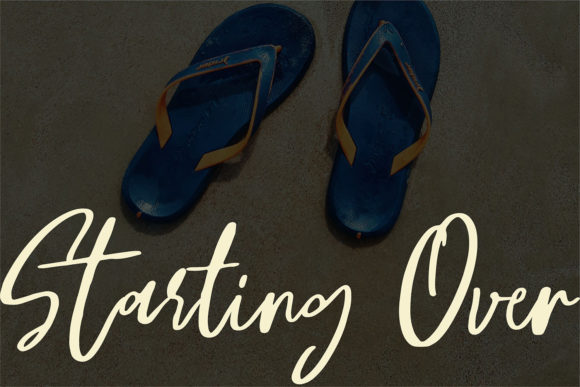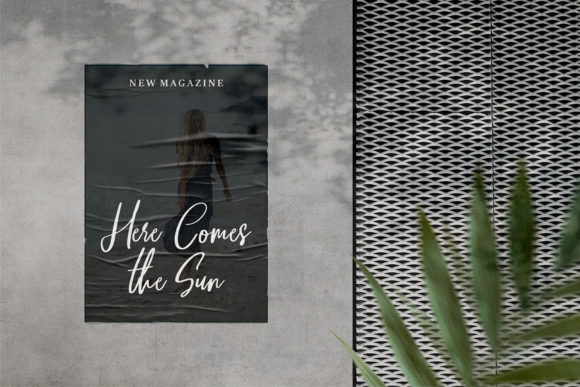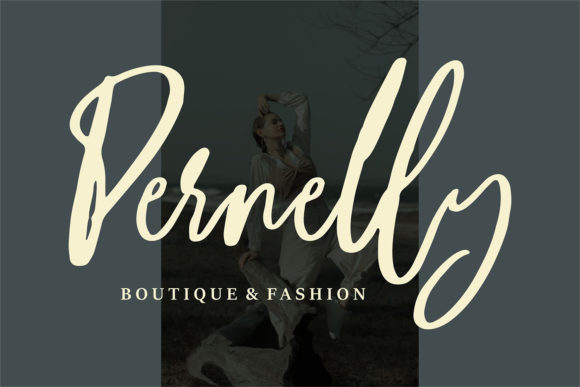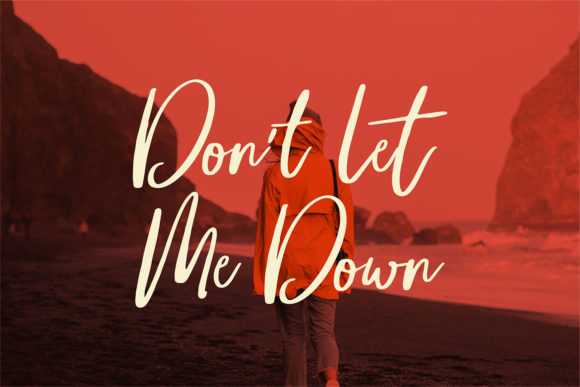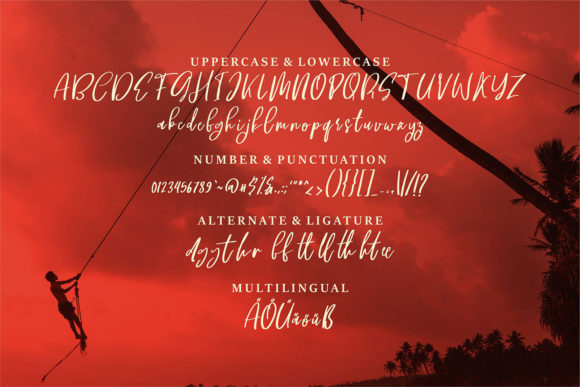
Introduction to Hesley Font
Hesley is a chic, refined script font that emanates sophistication and elegance.
Its stylish alternates and ligatures make this font the perfect match for any project .
Key Features of Hesley Font